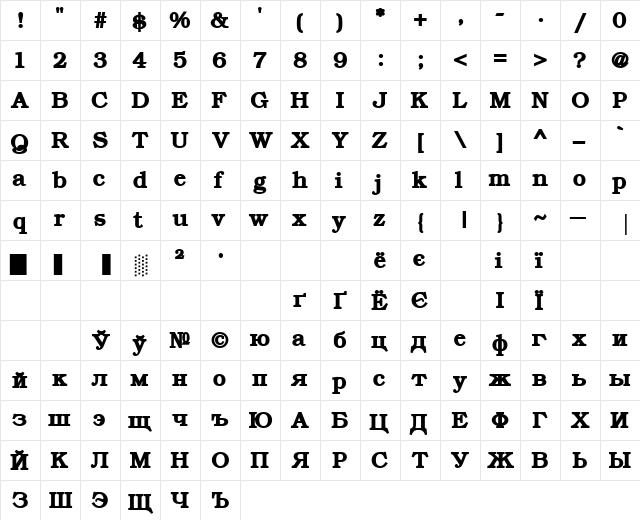
ER Bukinist KOI-8 Bold
Design Context for ER Bukinist KOI-8 Typeface
ER Bukinist KOI-8 takes a measured approach to typography — its balanced proportions and neutral character make it a reliable workhorse for both digital and print work. Its bold stroke weight gives it real presence on the page.